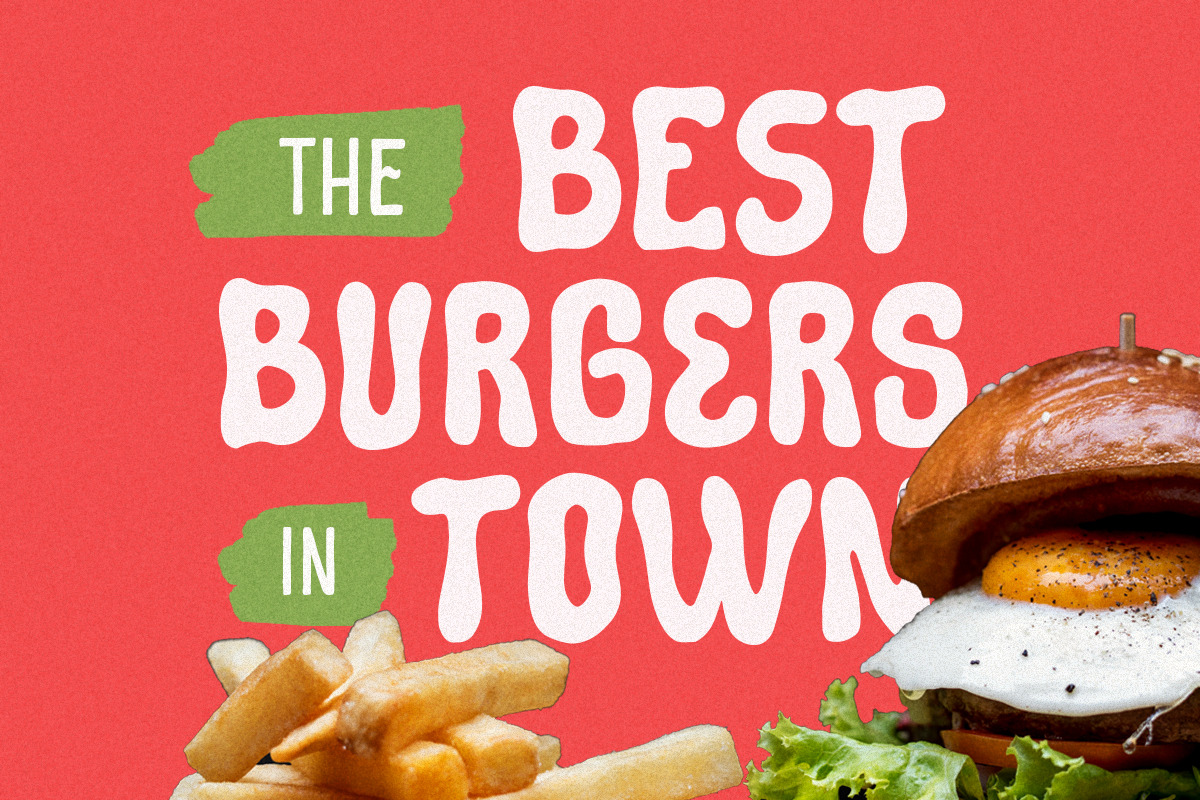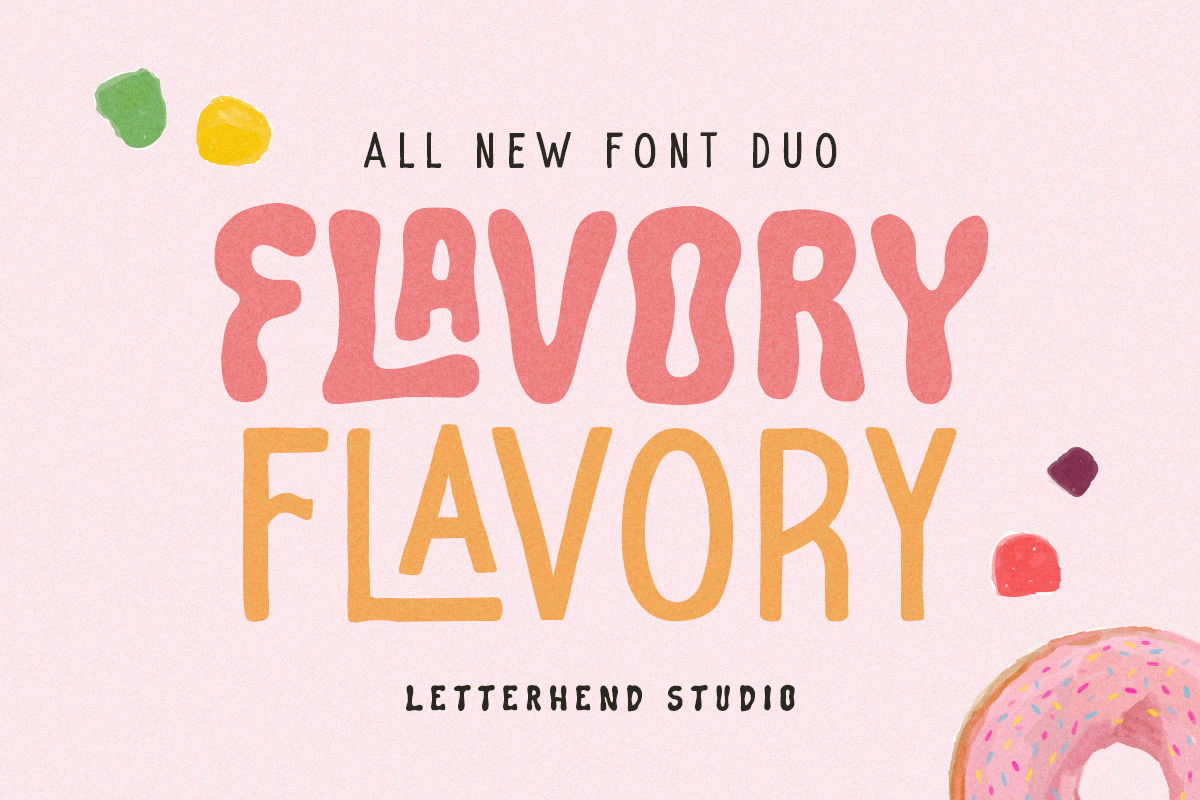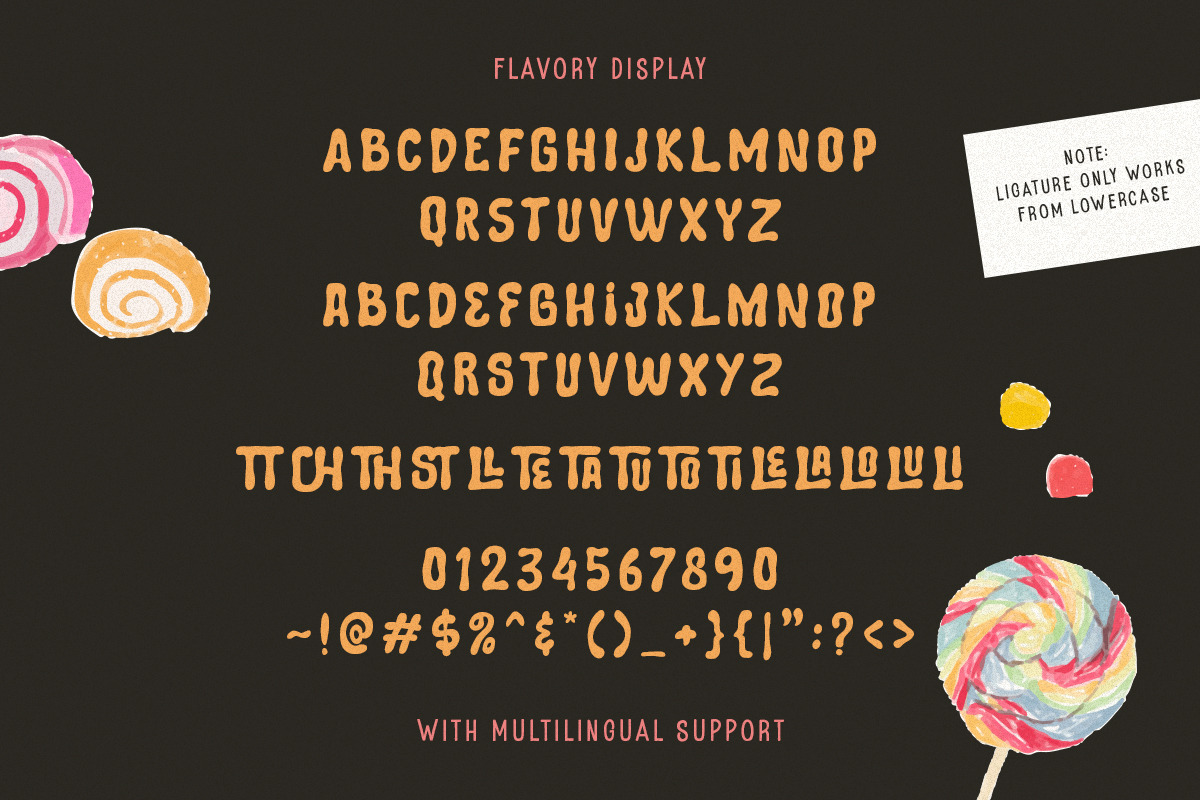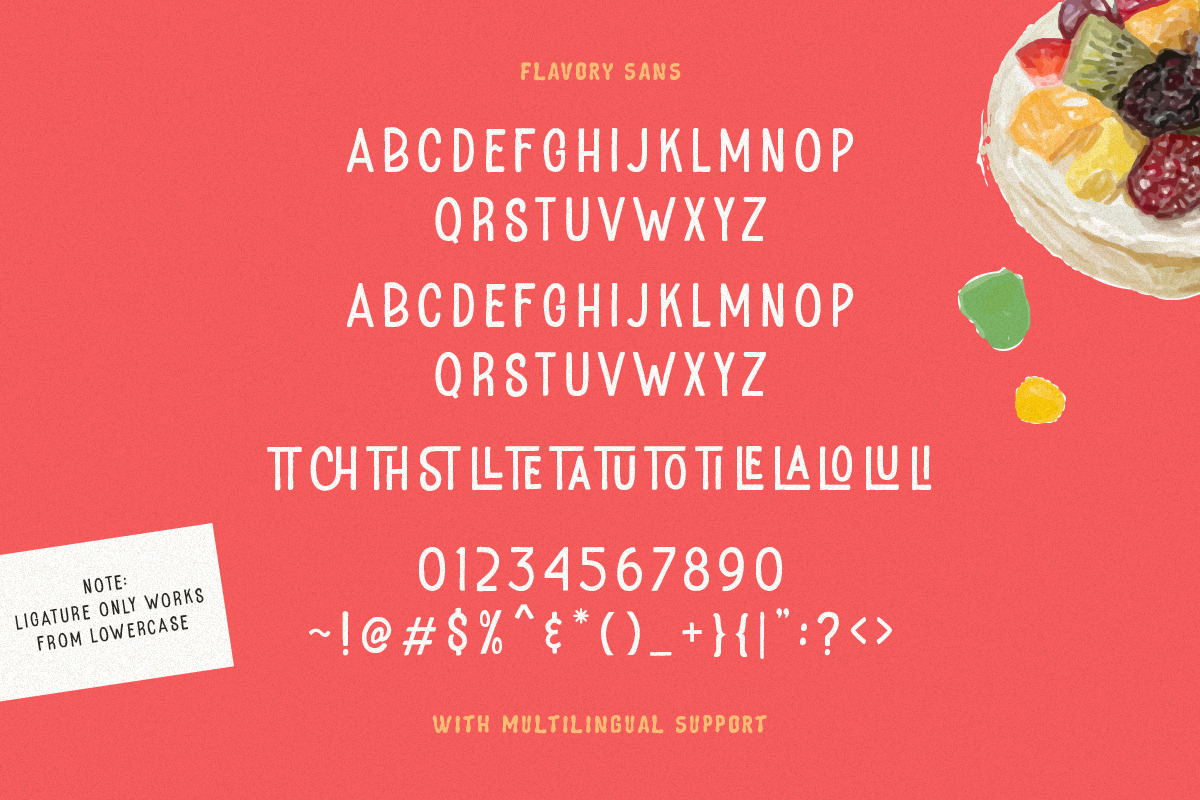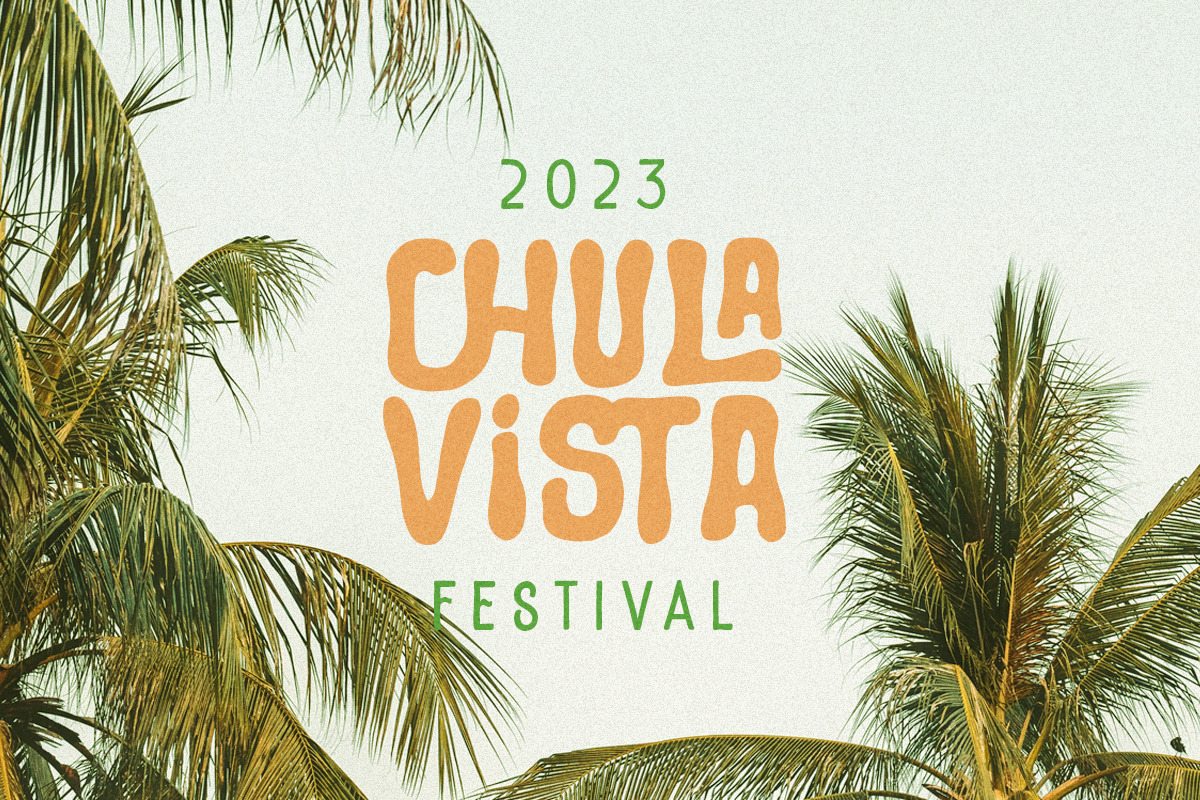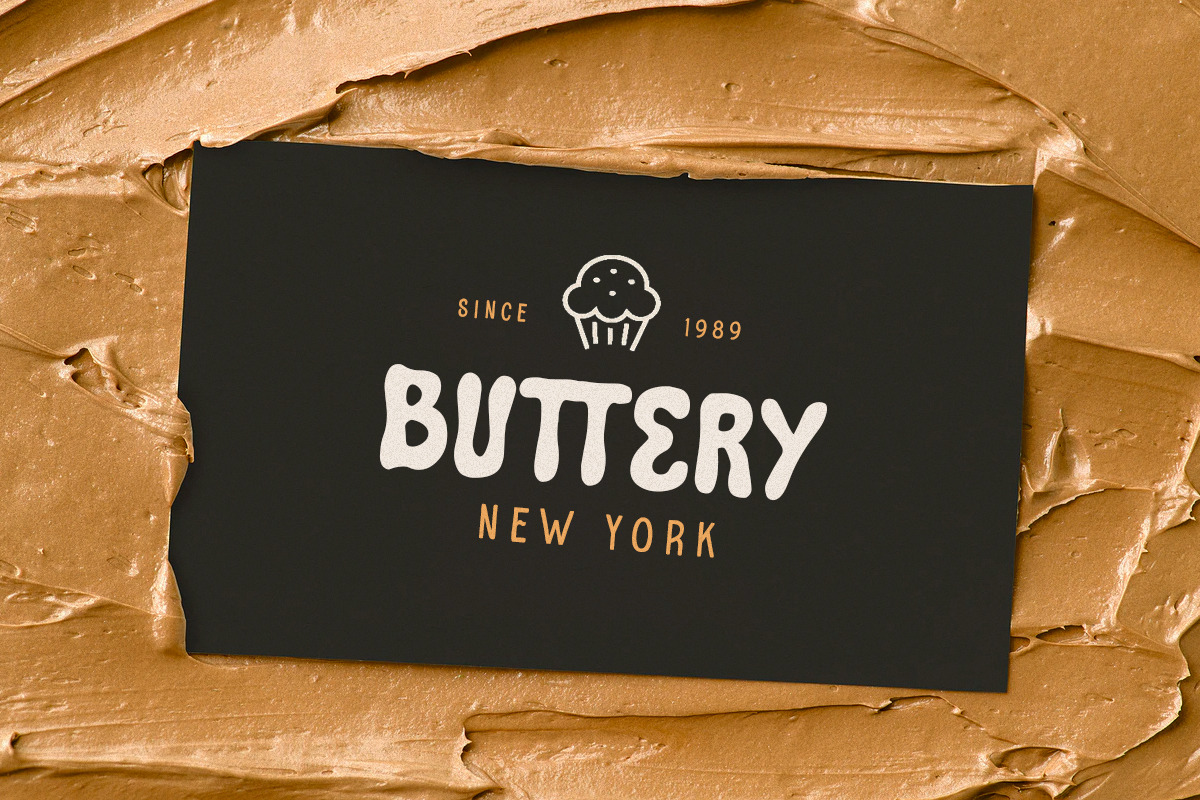
Flavory - Fun Font Duo
Flavory is a font duo with fun and playful looks. This type of font perfectly made to be applied especially in storybook children or child theme which is need a standout font, and the other various formal forms such as invitations, labels, logos, magazines, books, greeting / wedding cards, packaging, fashion, make up, stationery, novels, labels or any type of advertising purpose.
- two styles